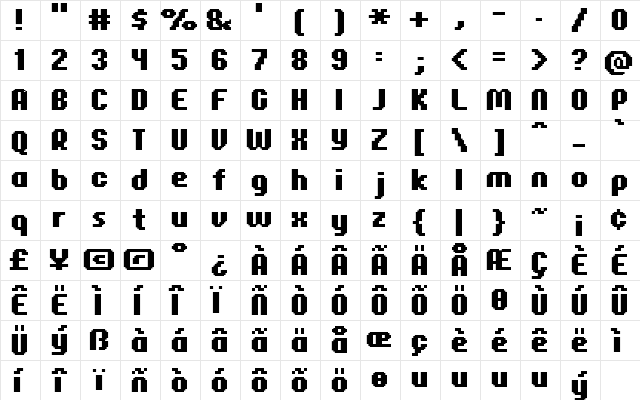
FFF Corporate Rounded Bold Regular
Design Context for FFF Corporate Rounded Bold Typeface
FFF Corporate Rounded Bold softens its letterforms with rounded terminals, giving it an approachable, friendly quality that works well in consumer-facing and digital contexts. The heavy weight commands attention and anchors typographic hierarchies.
Well-suited to UI design, mobile interfaces, and any brand that wants approachability without sacrificing clarity.
Font Pairing: Pairs well with a rounded or humanist sans for body copy, maintaining the friendly tone without relying on FFF Corporate Rounded Bold to carry extended reading.
Pro Tip: Use FFF Corporate Rounded Bold for UI elements, app interfaces, and anywhere a friendly, approachable tone needs to be maintained without sacrificing clarity.